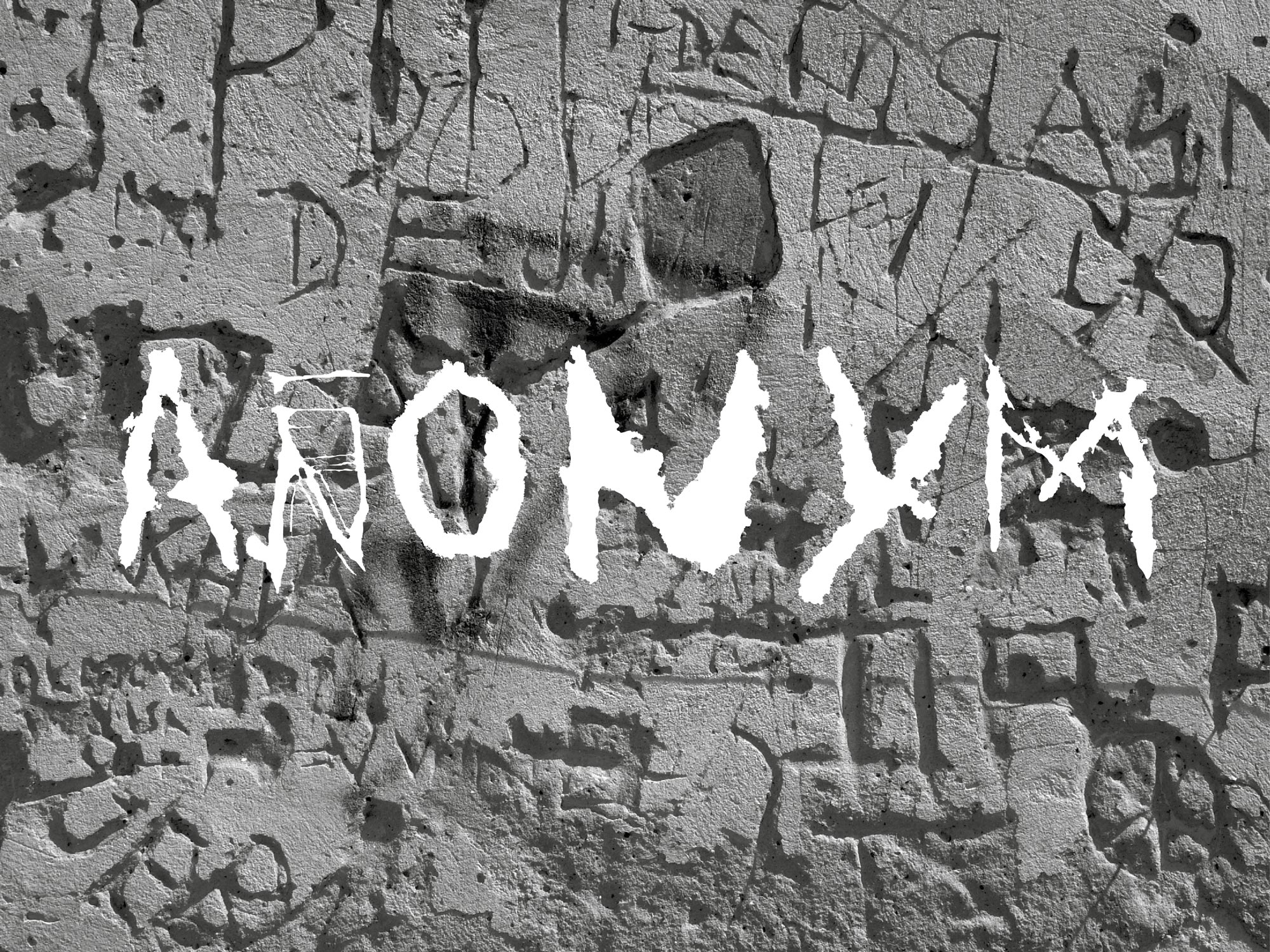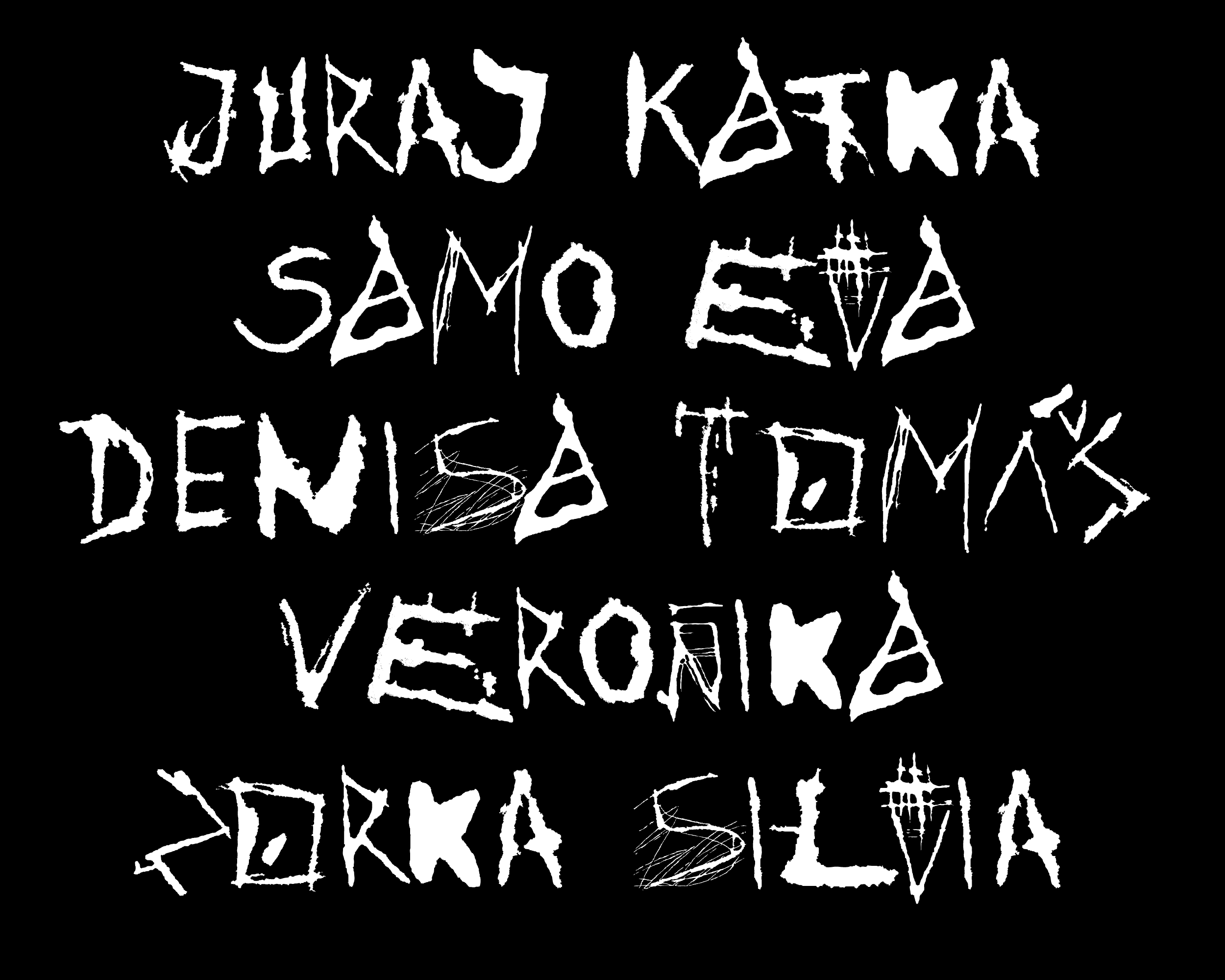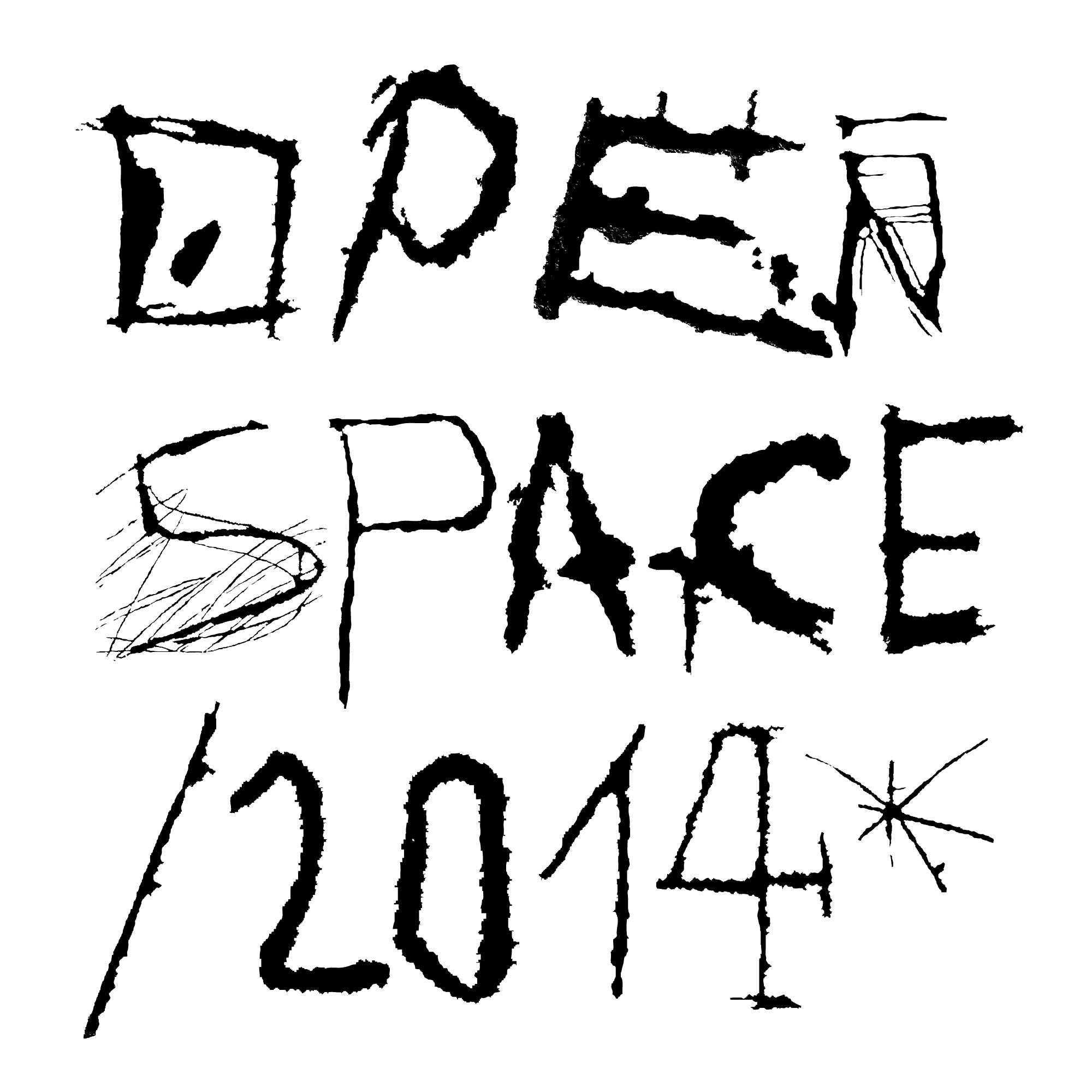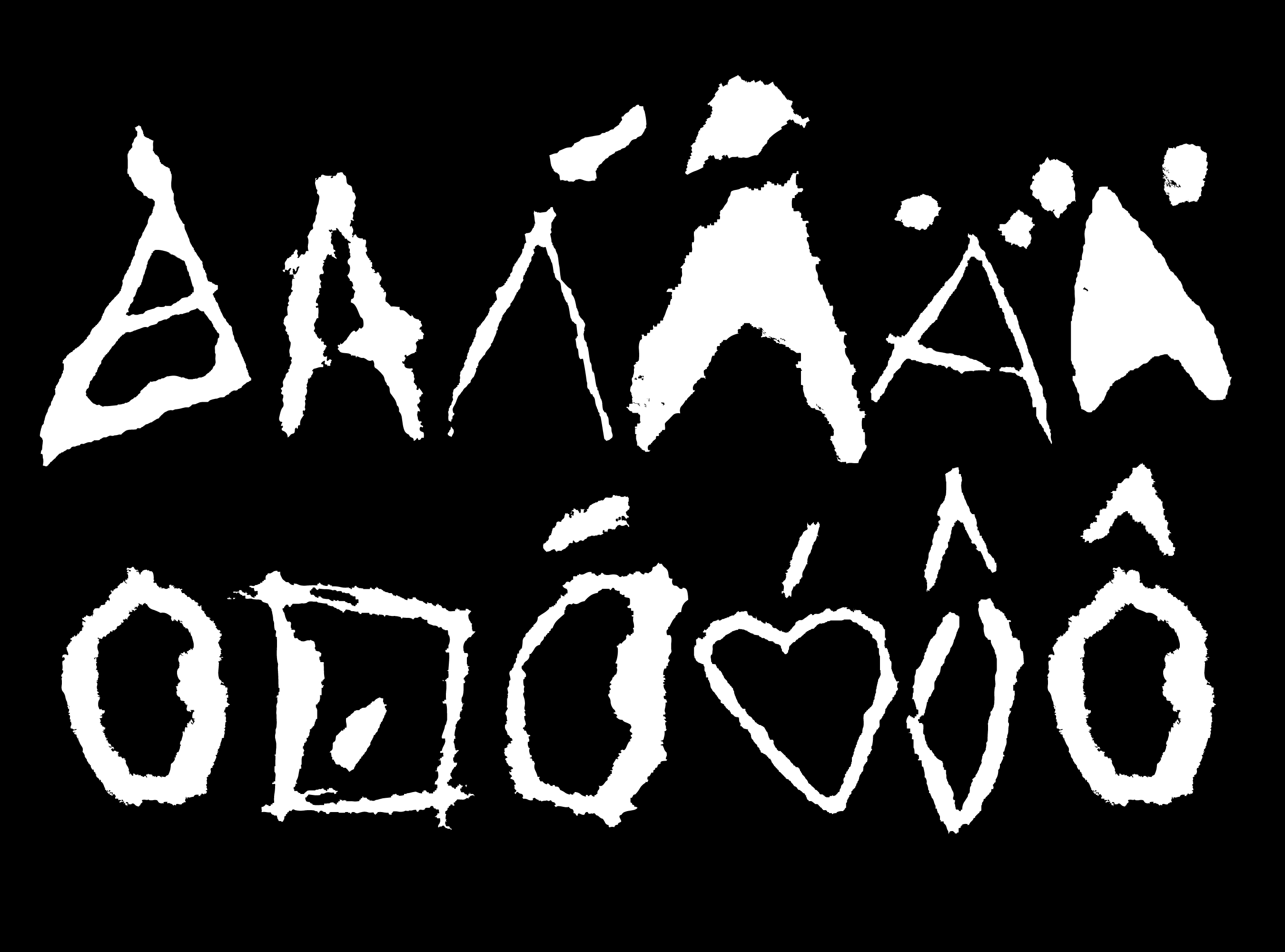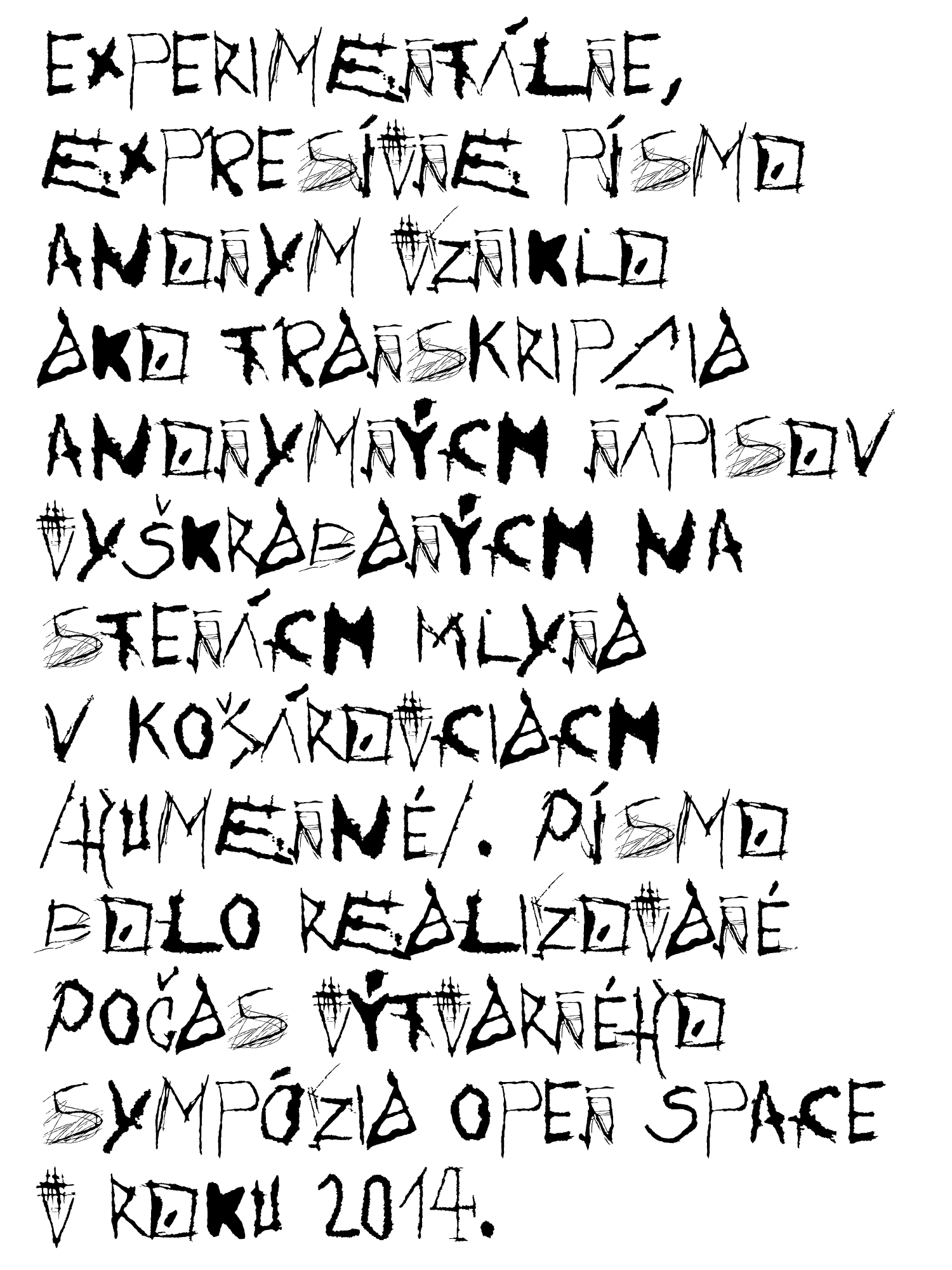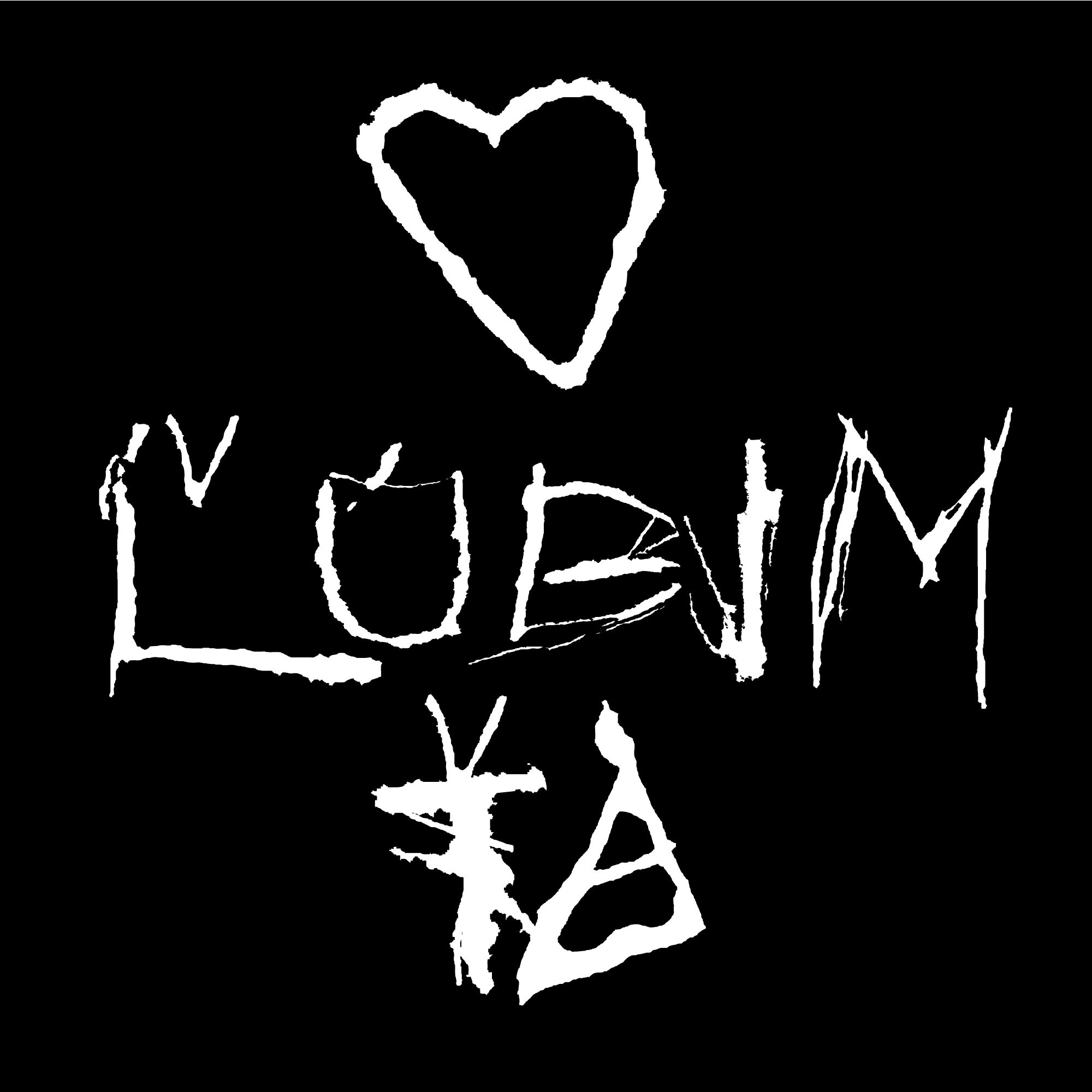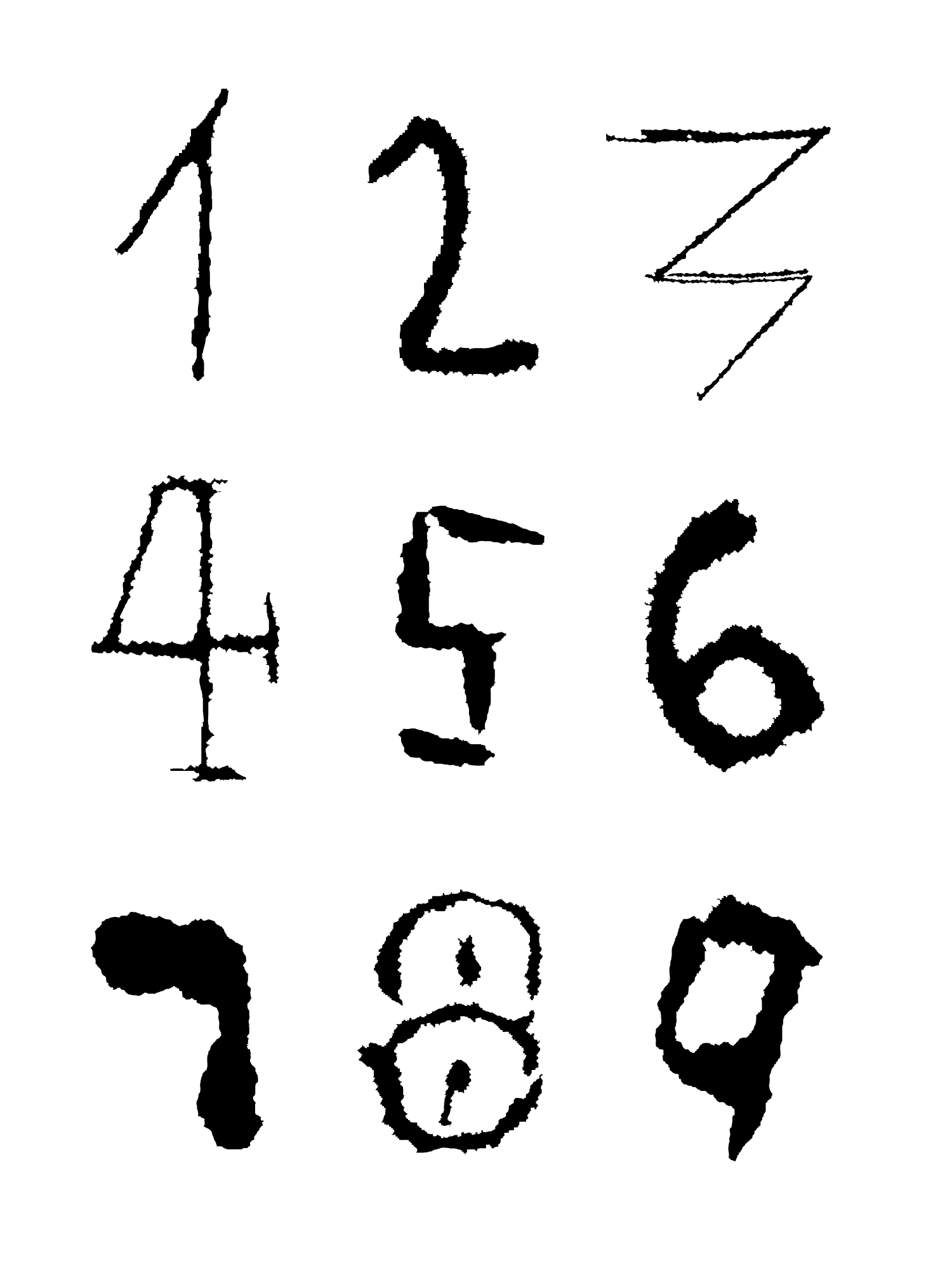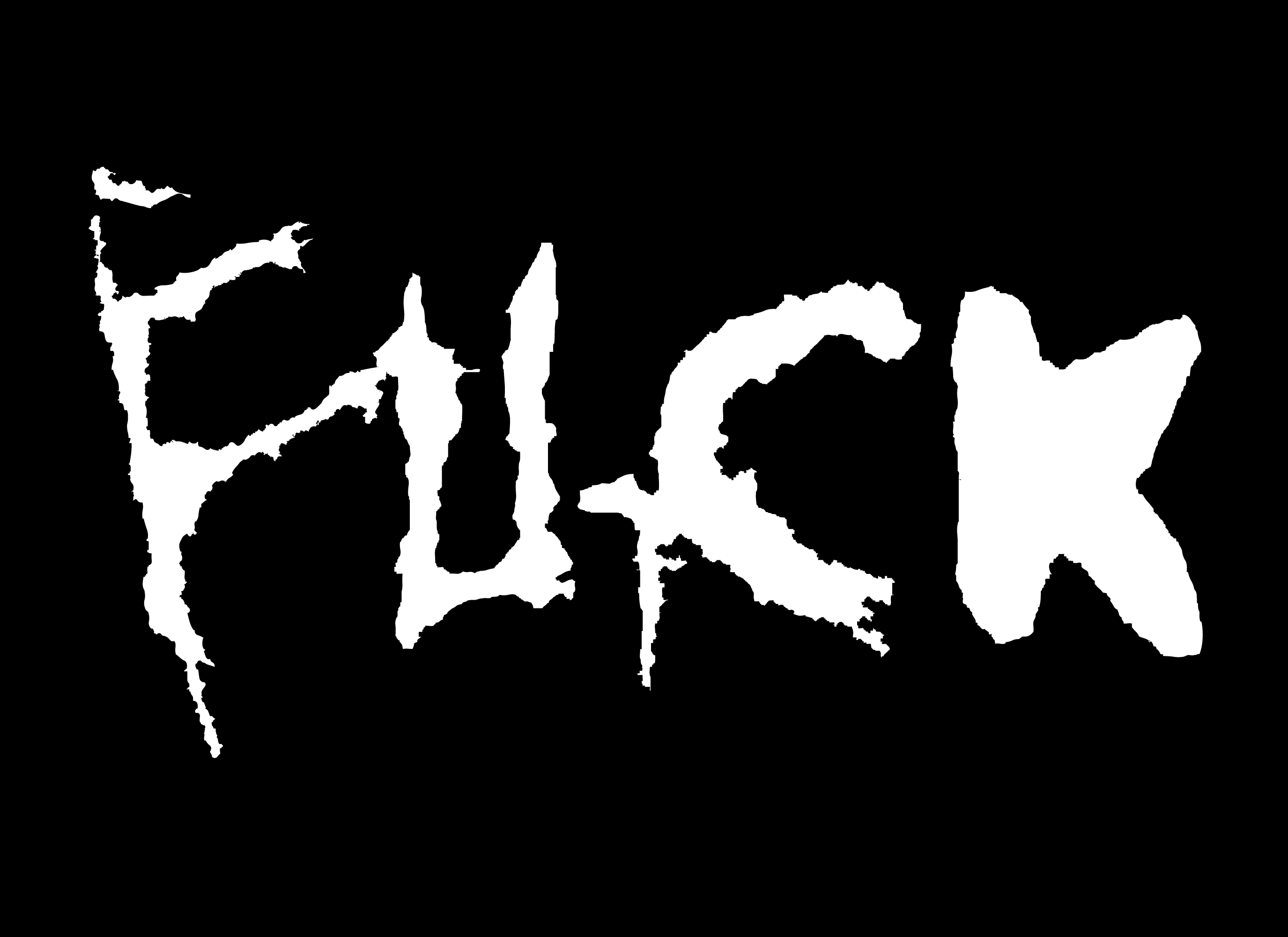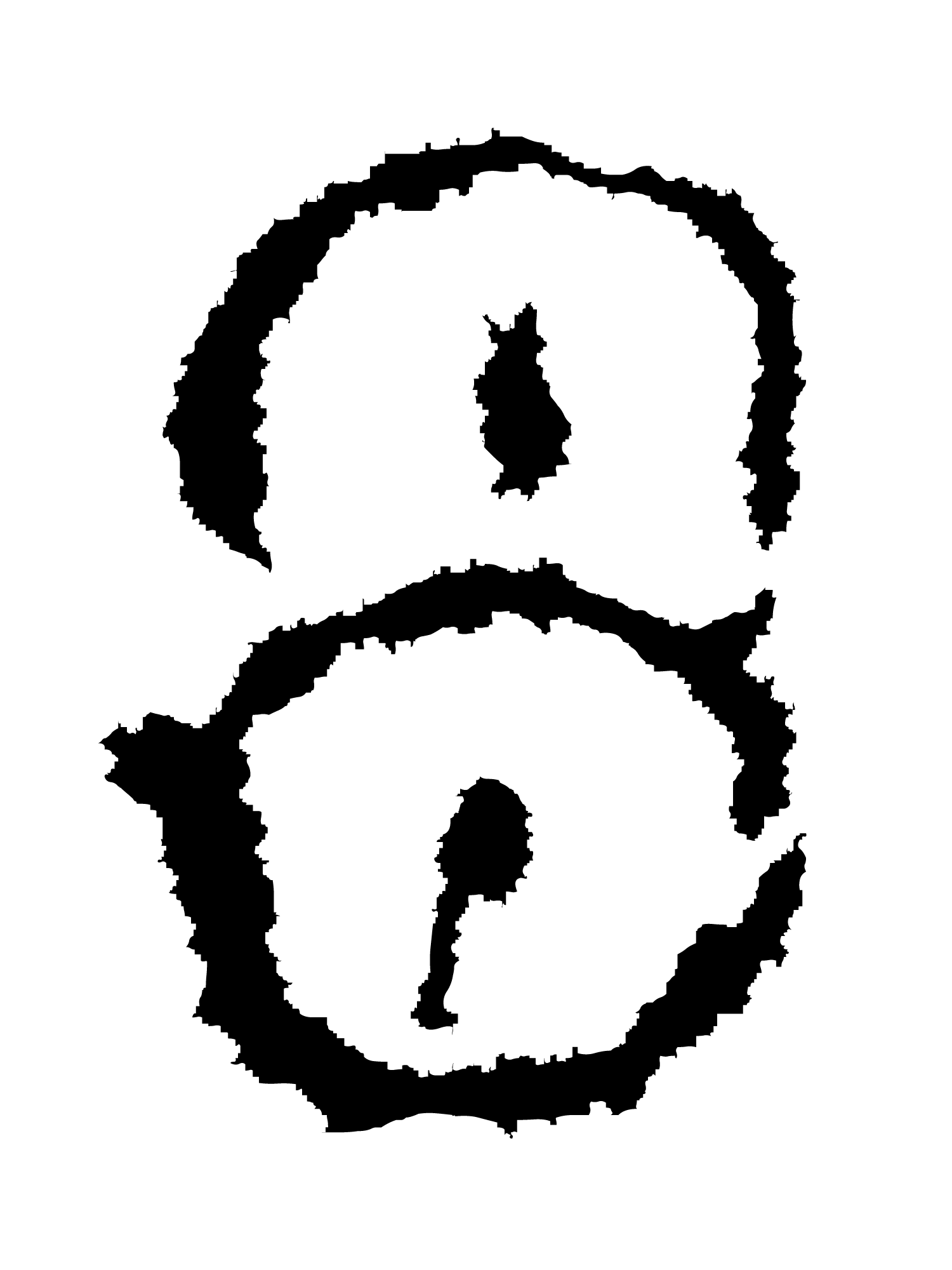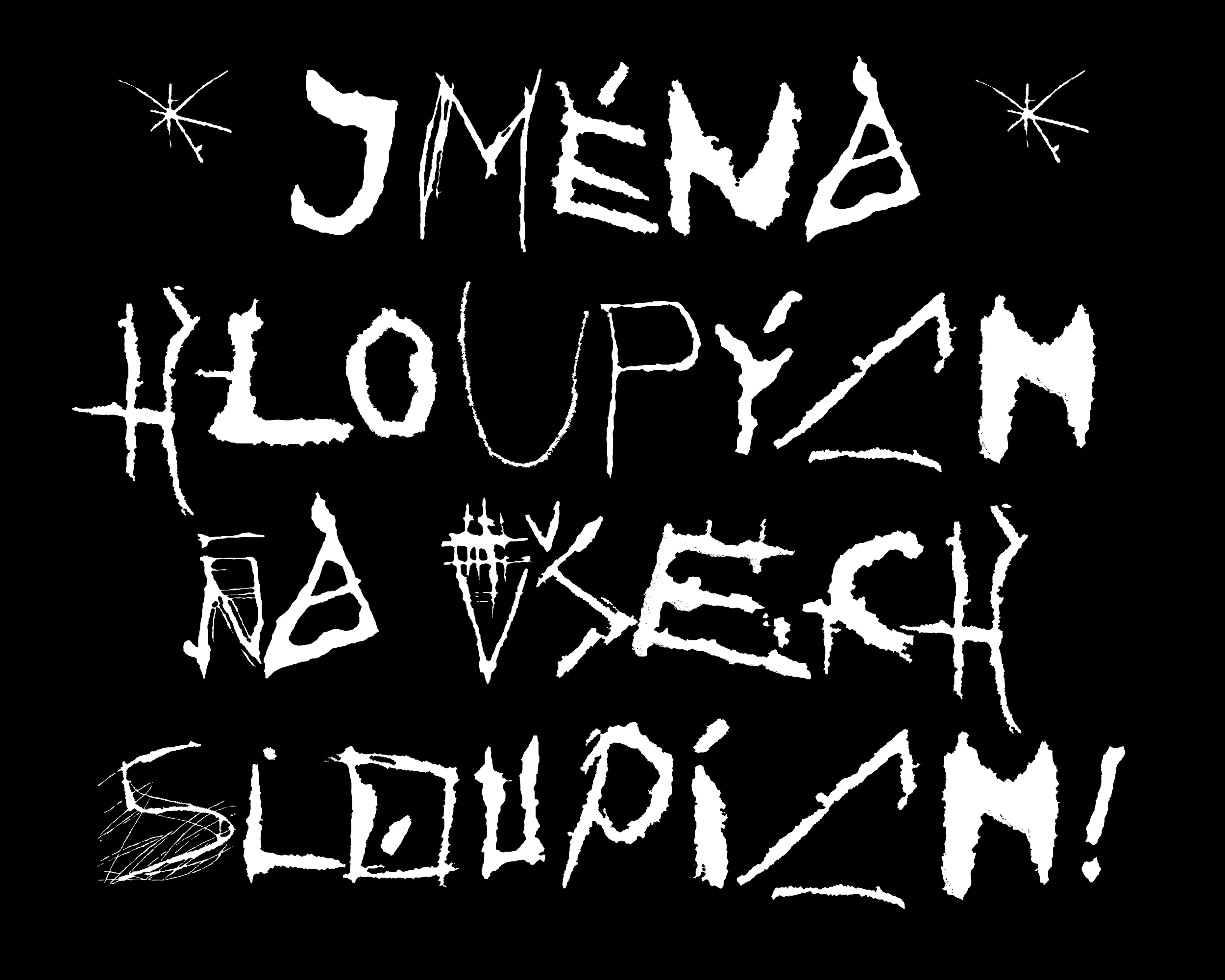
Anonym
An expressive typeface created as a digitalisation of an anonymous scratched signs at the mill in Košárovce village (OpenSpace symposium 2014).